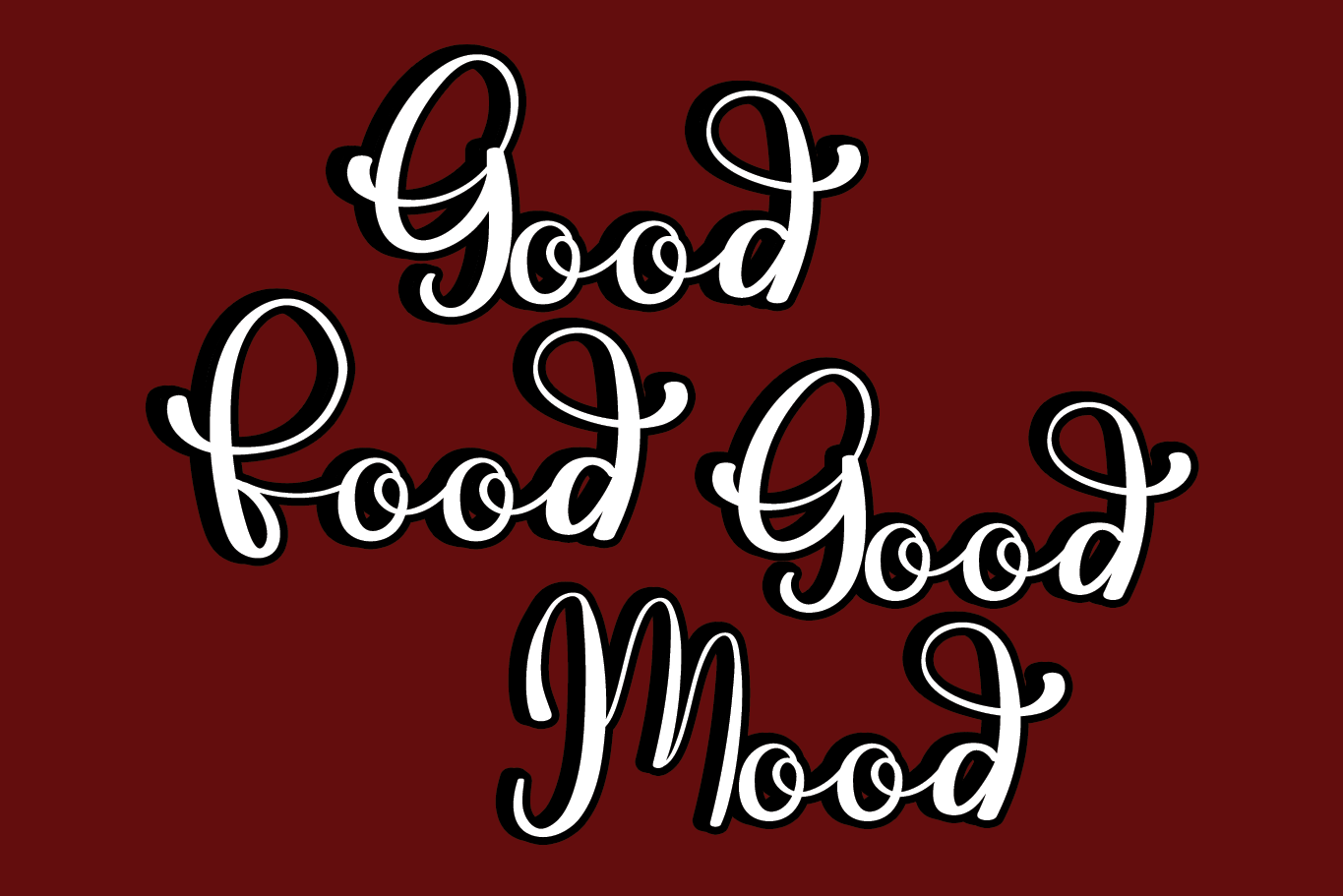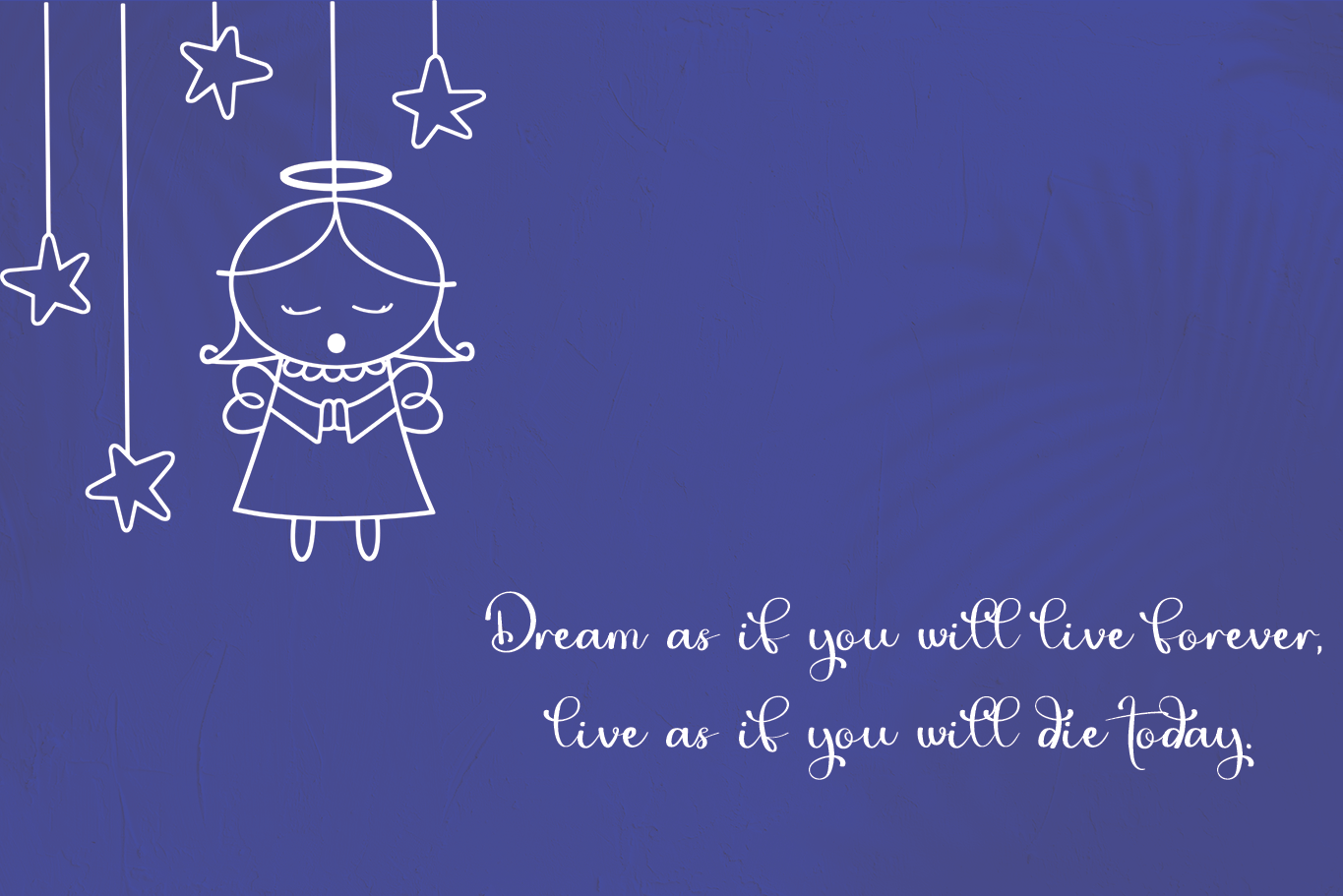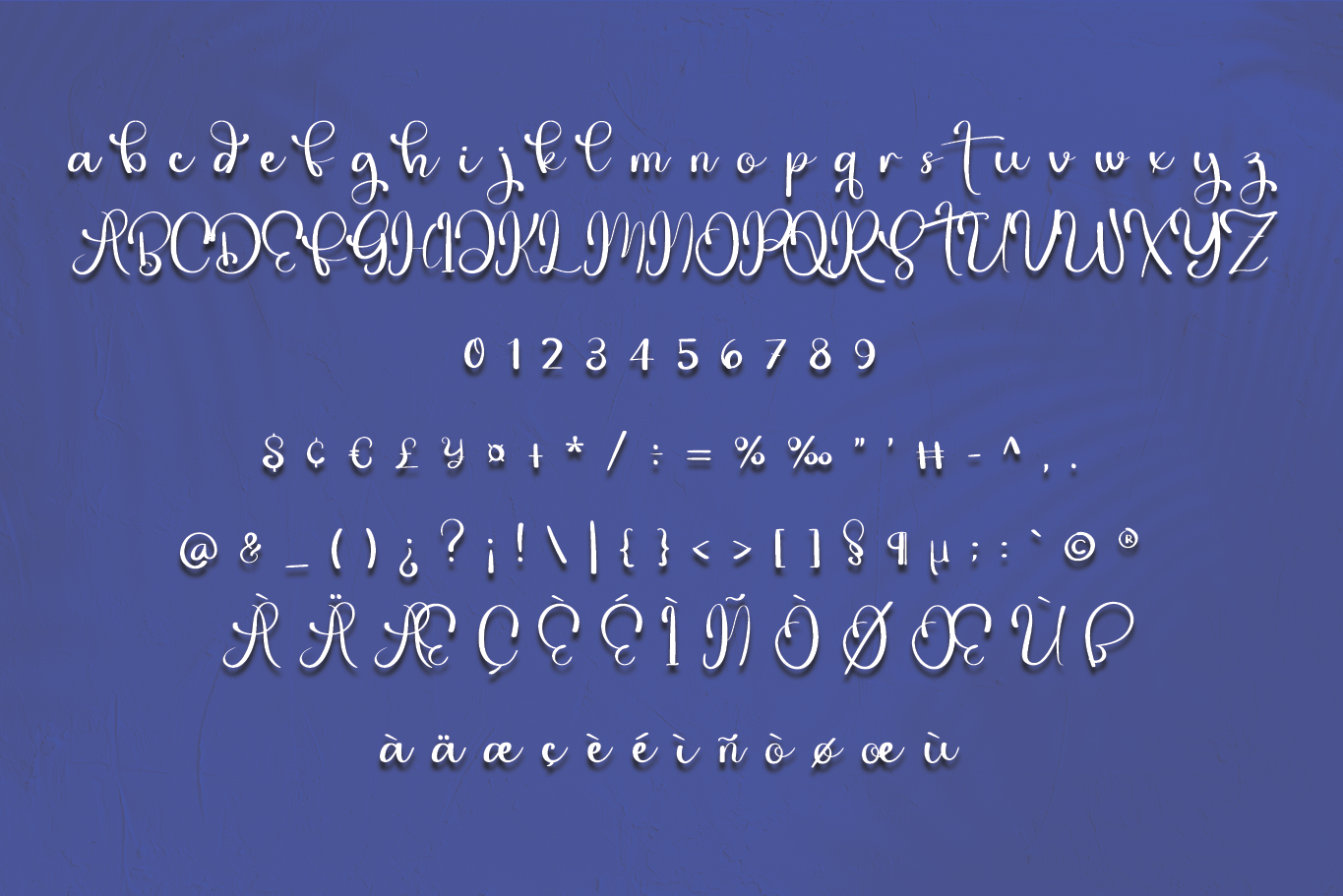
Beautiful Angel Font
Beautiful Angel Script Font
This is an incredibly unique and beautiful handwritten font, defined by a joyful style. Fall for its ravishing style and use it to create gorgeous wedding invitations, beautiful stationary art, eye-catching social media posts, and much more!